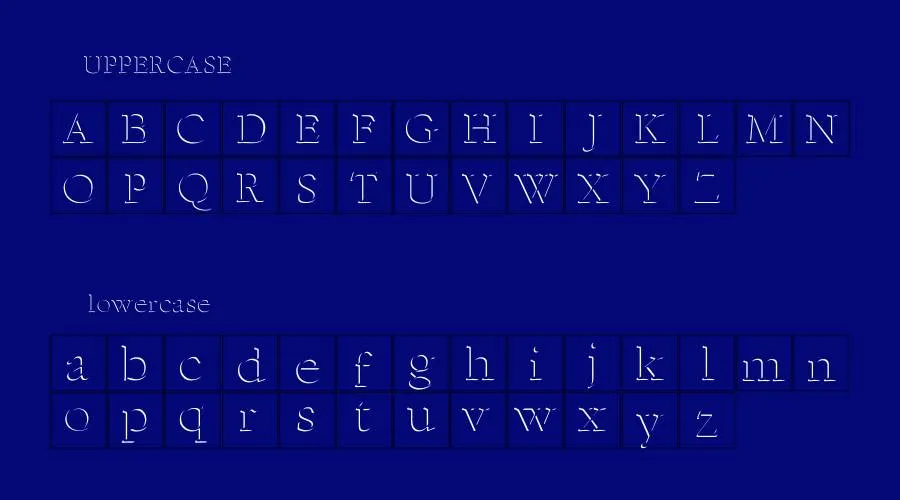
About GE Emboss Font
The GE Emboss Font is a famous serif texture family and is the perfect choice for all your fun purpose, and methods. This font has a neat and straightforward surface look appearance. You may get it free from here in both file formats OTF and TTF.